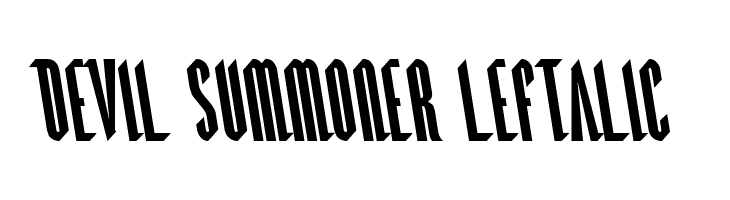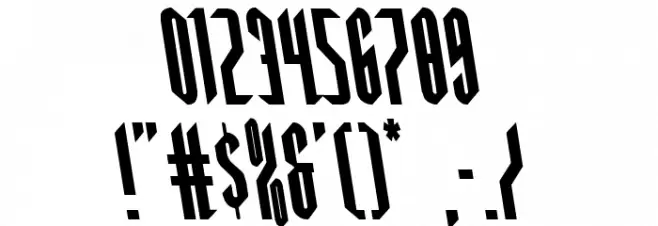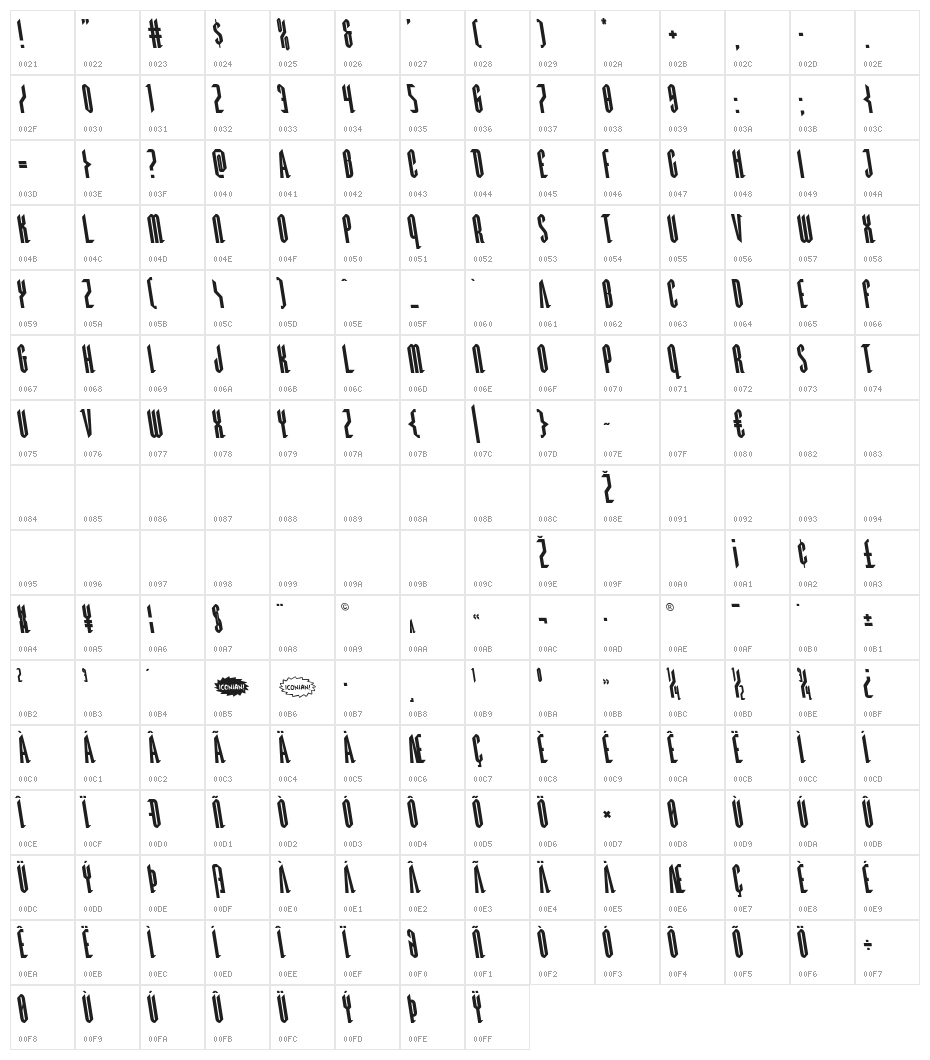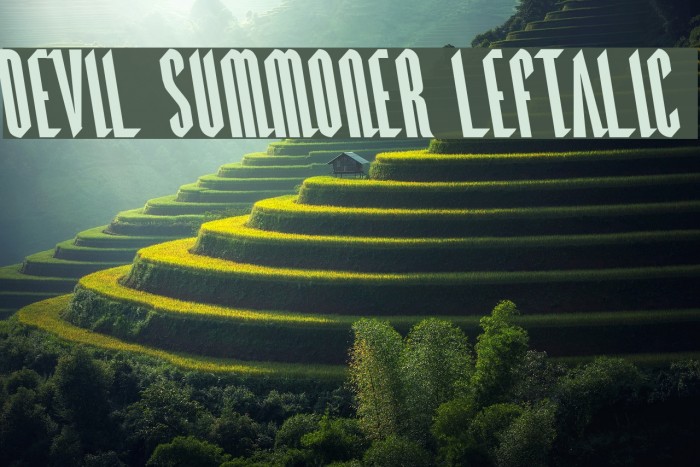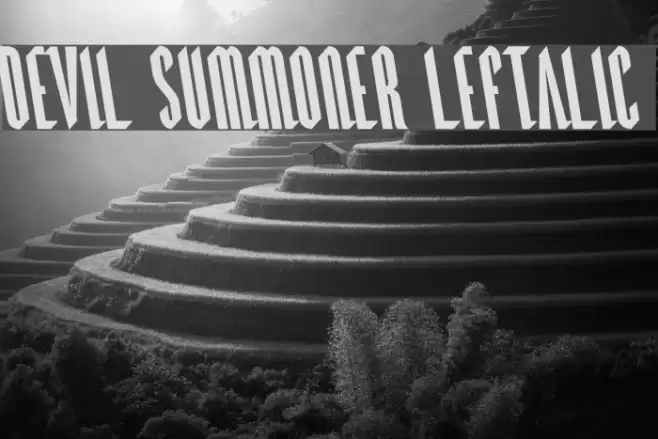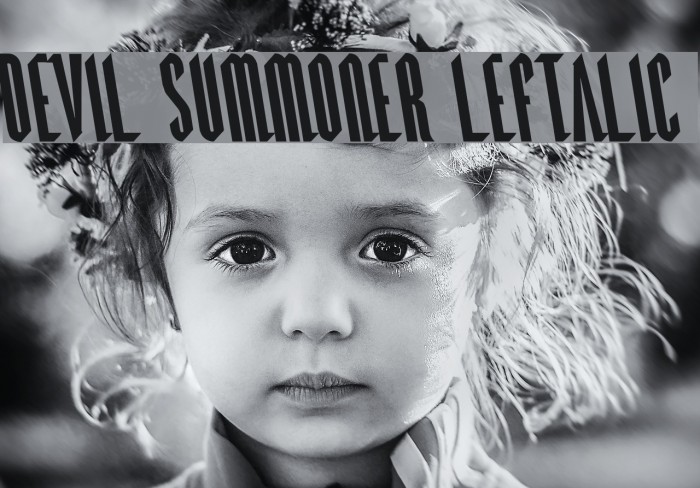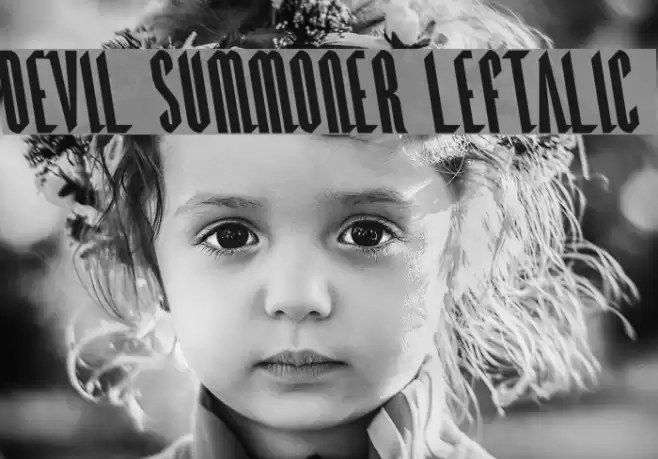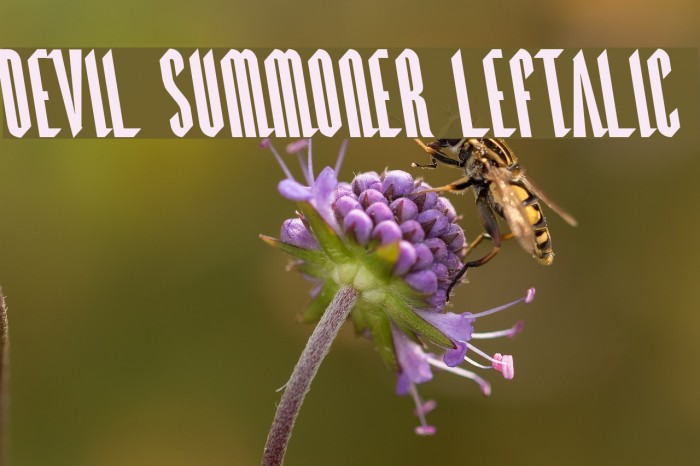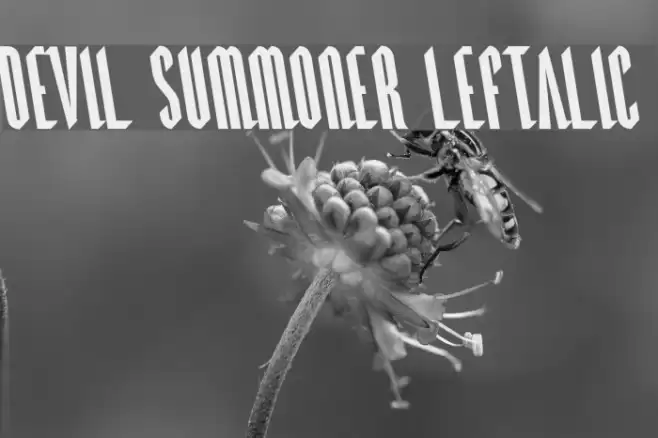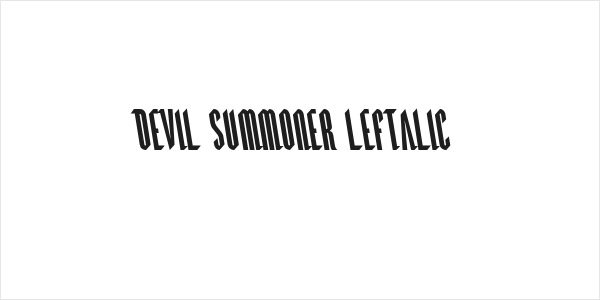
Devil Summoner Leftalic Font
Devil Summoner Leftalic Description
This font features a bold and dynamic style with a distinct leftward slant, giving it a unique and edgy appearance. The characters are tall and narrow, with sharp angles and a strong presence. The uppercase and lowercase letters maintain a consistent style, emphasizing verticality and angularity. Numbers and special characters follow the same design principles, ensuring uniformity across all glyphs. The font's boldness and slant make it particularly eye-catching, suitable for projects that require a strong visual impact.
| Overall Style | Modern, Edgy |
| Proposed Projects | Ideal for posters, video game titles, branding for edgy products, and any design needing a bold statement. |